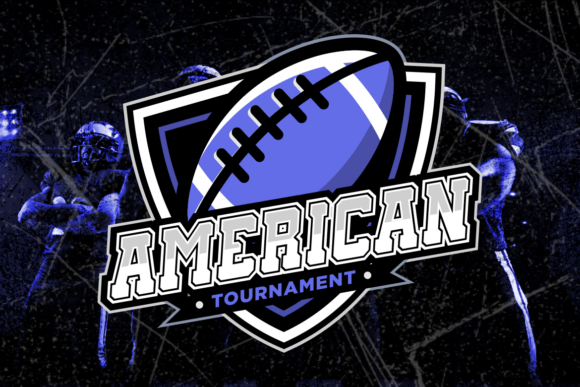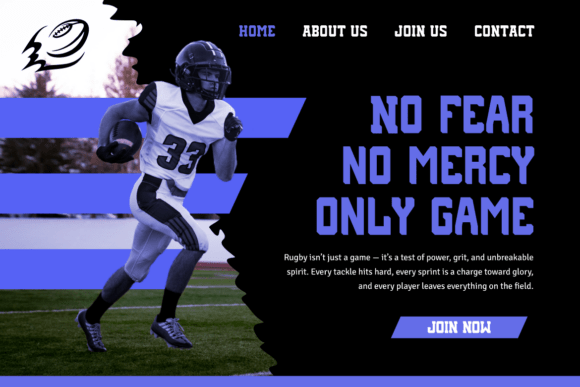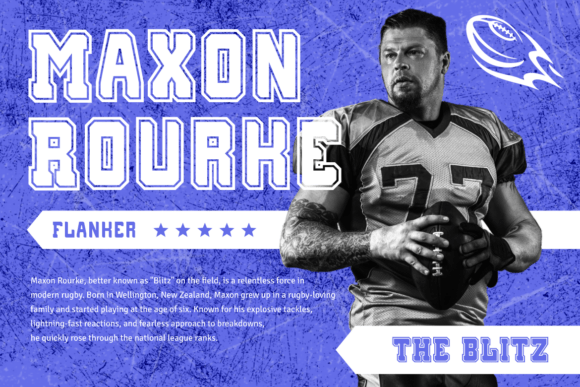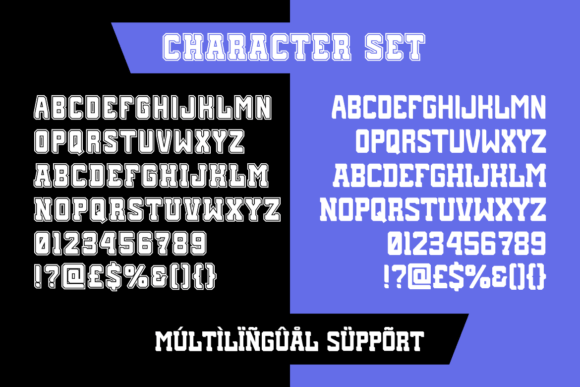
Introduction to Rugby Squad Font
Have you ever been brainstorming for your next creative project and struggled to find the perfect font that captures the energy and spirit of your design? I’ve been there too! One moment that stands out was when I was working on a sports-themed campaign and needed a font that could convey the intensity and competition of the game. That’s when I discovered the Rugby Squad Font – a game-changer for designers who want to add a bold and dynamic touch to their work.
The Rugby Squad Font is more than just a design resource; it’s a powerful tool that can elevate your creative project and leave a lasting impression on your audience. With its distinctive block-style letters and strong geometric shapes, this font is perfect for sports-themed aesthetics, from team logos to sports event posters.
Rugby Squad Font
- High-quality font design suitable for various creative projects, including sports-related themes.
- Comes in a transparent background, allowing for easy customization and versatility in design.
- Designed with a bold, modern aesthetic, perfect for adding a dynamic touch to your design.
Honest Review: Rugby Squad Font
As a designer, I was excited to dive into the Rugby Squad Font, a free download that promised to bring a high-quality feel to my creative project. Upon closer inspection, I found that it delivered on its promise.
- ✨ The font’s bold lines and geometric shapes make it perfect for sports-related designs.
- ✨ The transparent background option allows for seamless integration with various design elements.
However, I did encounter some limitations with the Rugby Squad Font.
- ⚠️ The font may not be suitable for fine typography or detailed text-based designs.
- ⚠️ Some users may find the font’s geometric shape a bit too playful or unprofessional for certain projects.
Overall, I was impressed with the Rugby Squad Font’s potential for adding a unique touch to my designs. While it may have some limitations, it’s a valuable resource for designers working on sports-related or fun, creative projects.
Rugby Squad Font
Design Resource for Your Creative Project
The Rugby Squad Font is a high-quality font that is perfect for any creative project. This font is available for free download and comes with a transparent background, making it easy to use in any design software.
Common Use Cases for Rugby Squad Font
The Rugby Squad Font is perfect for a variety of projects, including:
- Sports teams and leagues
- School and university projects
- Marketing and advertising campaigns
- Personal projects and hobbies